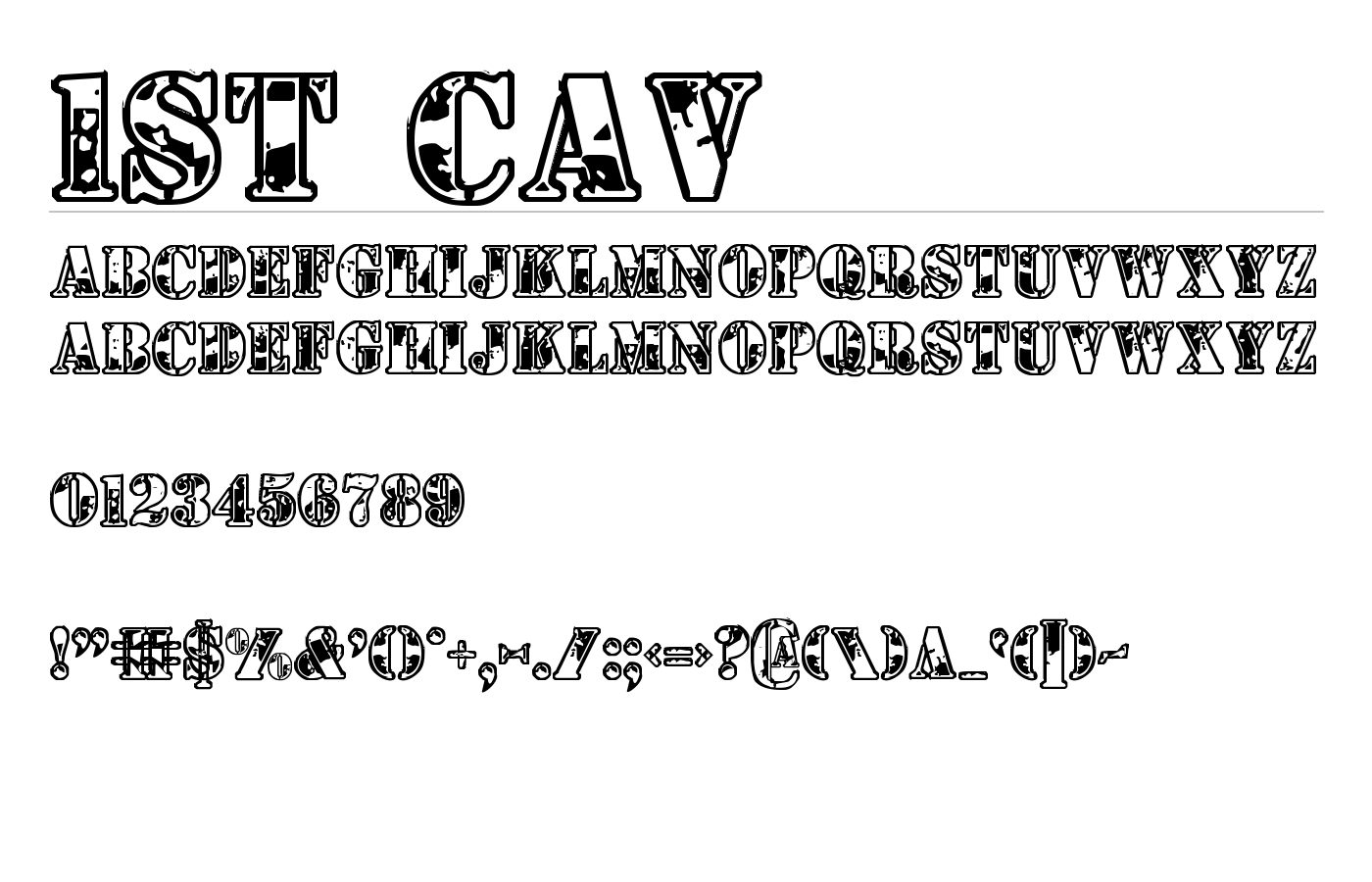
1st Cav Font is a bold, decorative slab serif typeface with a distressed, military-inspired texture that adds rugged character to its strong, blocky letterforms. Its condensed width and high contrast details make it well-suited for impactful headlines, posters, and branding where a vintage, tough, and authoritative mood is desired. This font works best in designs needing a bold statement with a gritty, historic feel, such as military-themed projects, outdoor gear packaging, or retro signage.
1st Cav Font
About 1st Cav Font